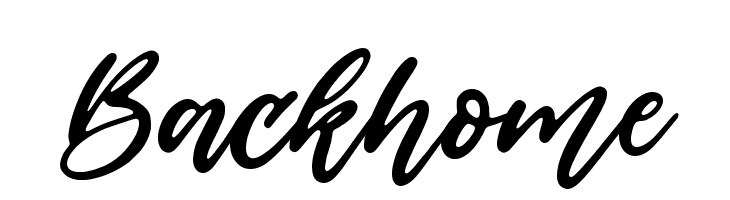
A dynamic and flowing script font with elegant, cursive letterforms.
A bold, expressive handwritten font with fluid strokes and a playful style.
A bold, brush-style script font with dynamic, flowing letterforms.
A bold, cursive font with fluid, elegant strokes.
A bold, brushstroke-style font with a dynamic and expressive appearance.
A bold, expressive brush-style font with a raw, artistic appearance.